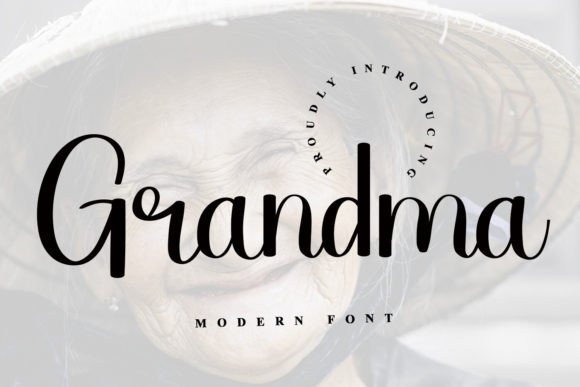
Introducing Grandma Font, the script font that will captivate your senses and elevate your design projects to new heights. Created by the talented ABBAsalam, this exquisite handwritten font is the perfect choice for those seeking a touch of elegance and sophistication.
With its flawless calligraphic influences, Grandma Font effortlessly blends classic charm with a modern twist. Its smooth curves and graceful strokes add a sense of refinement to any creative endeavor, making it a versatile option for various design applications.
Imagine the impact Grandma Font will have on your business materials, social media posts, or personal projects. It possesses a unique ability to evoke emotion and create a lasting impression. From captivating logos to eye-catching headlines, this font will ensure your message stands out from the crowd.
But Grandma Font is not just about aesthetics; it is also a font that understands the power of words. Its keyword, "Best Font For Business Memeo," reflects its ability to effectively communicate your brand's essence. Whether you're aiming for a professional, playful, or heartfelt tone, Grandma Font adapts effortlessly to your desired style.